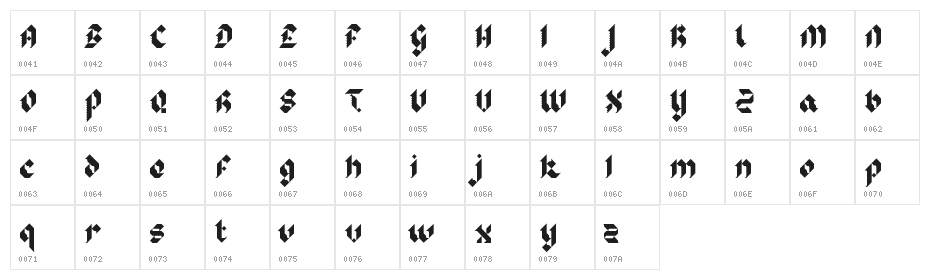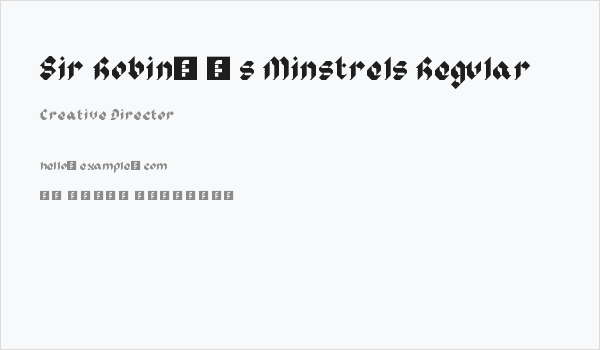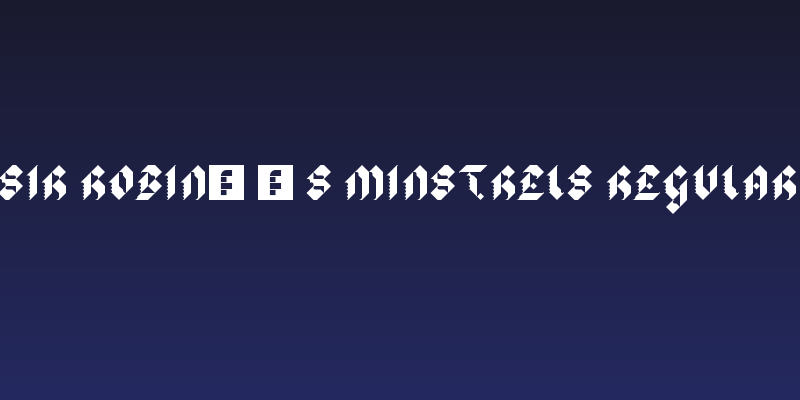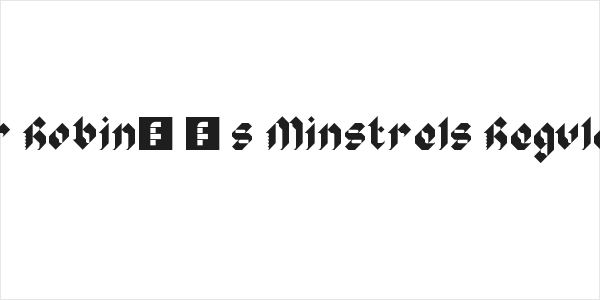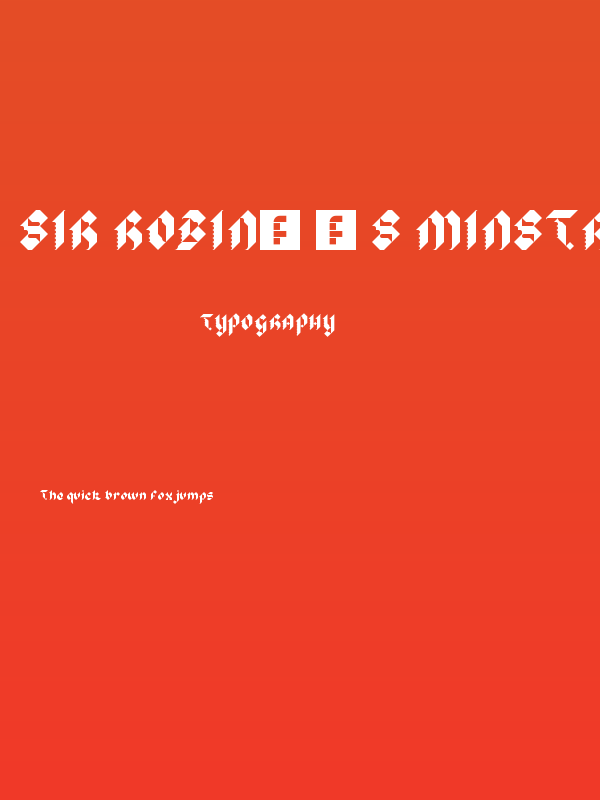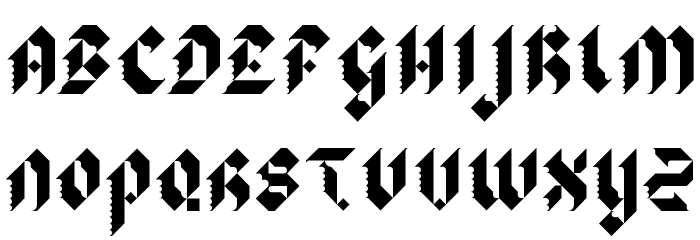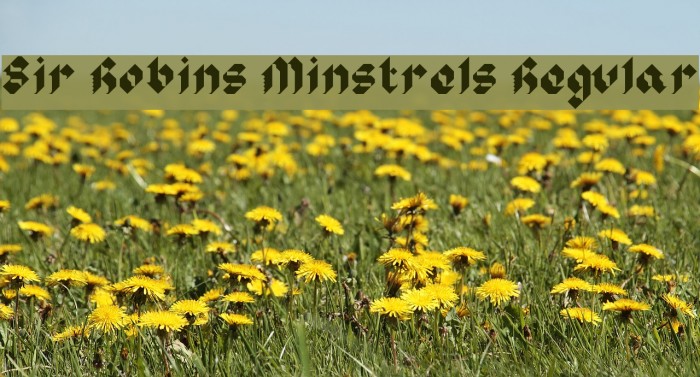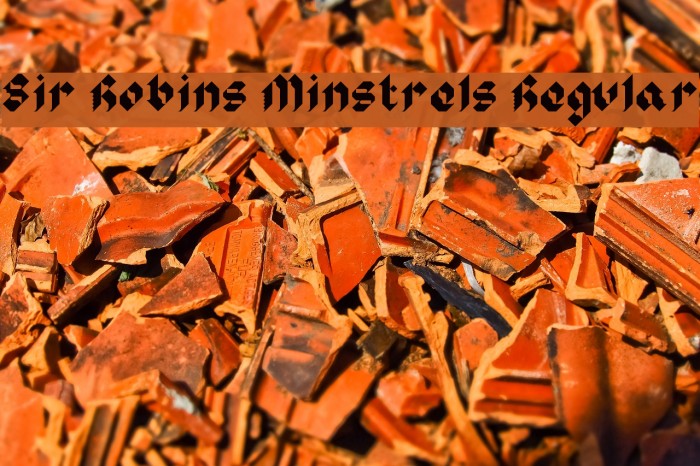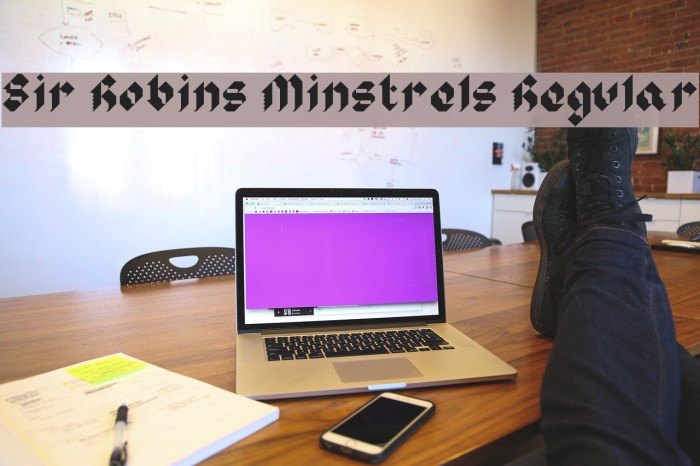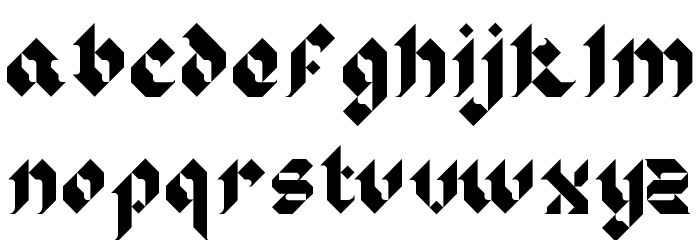
Sir Robin's Minstrels Regular Font
Sir Robin's Minstrels Regular Description
This font features a bold, angular design reminiscent of medieval script with a modern twist. The characters are sharply defined with a distinct zigzag pattern along the edges, giving them a unique, jagged appearance. The uppercase and lowercase letters maintain a consistent style, with strong vertical lines and sharp angles. The font's overall aesthetic is both decorative and assertive, making it stand out in any design. The numerals and special characters follow the same stylistic cues, ensuring a cohesive look across all text elements.
| Proposed Projects | Ideal for projects requiring a medieval or fantasy theme, such as book covers, posters, or themed event invitations. |